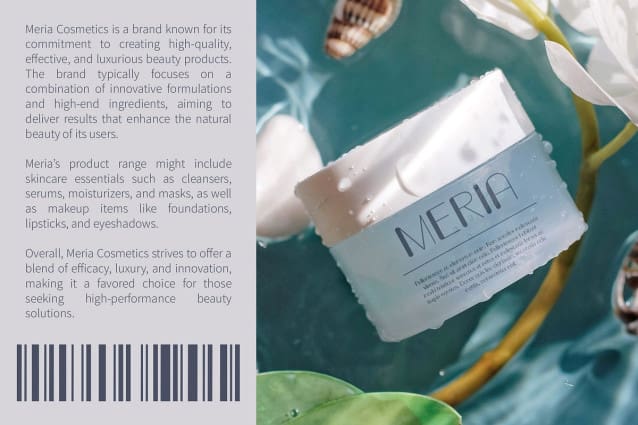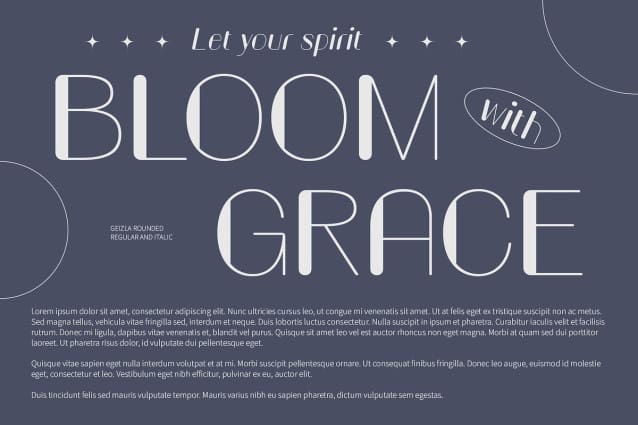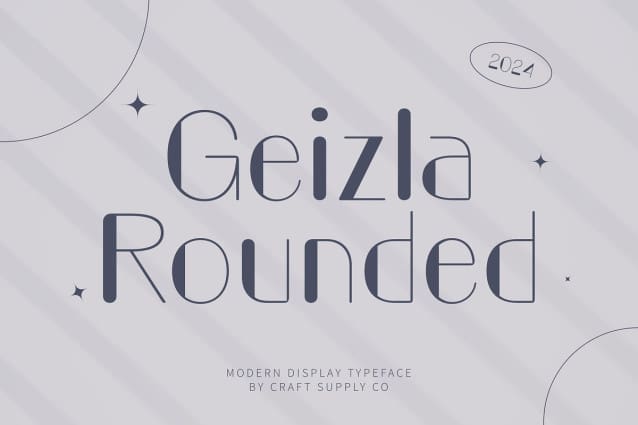
Geizla Rounded Font
Geizla Rounded Font is a modern sans-serif font that beautifully combines clean, contemporary design with soft, rounded shapes. Its smooth lines and rounded letterforms provide a friendly yet sophisticated appearance, making it an excellent choice for a wide range of applications.
Sophisticated Yet Friendly Appearance The font’s elegant curves and rounded corners offer a unique balance between professionalism and warmth. This makes Geizla Rounded perfect for projects that require a modern touch while maintaining a welcoming and approachable feel. Its refined design ensures a sophisticated look without sacrificing friendliness.
Ideal for Branding, Web Design, and Promotional Materials Geizla Rounded excels in various design applications, including branding, web design, and promotional materials. Its versatile style enhances both digital and print media, providing a clean and polished appearance that stands out in modern design contexts.
Combining Professionalism with Warmth With its blend of contemporary aesthetics and rounded elegance, Geizla Rounded is well-suited for projects that need to convey both professionalism and warmth. Whether used in corporate branding, user interfaces, or marketing collateral, this font adds a touch of modern sophistication while remaining approachable and engaging.